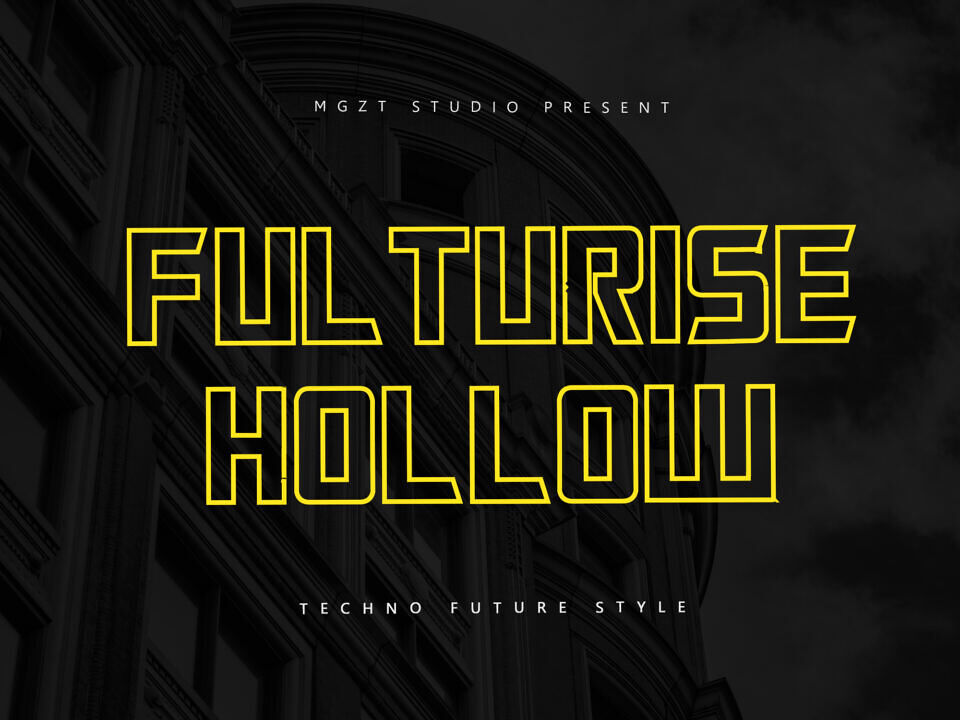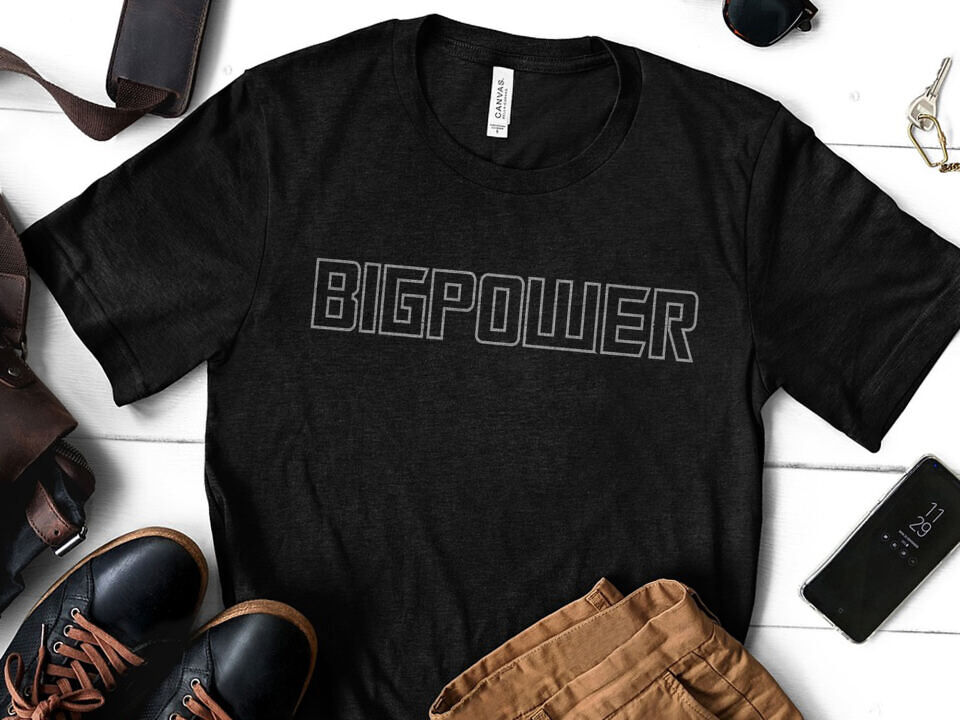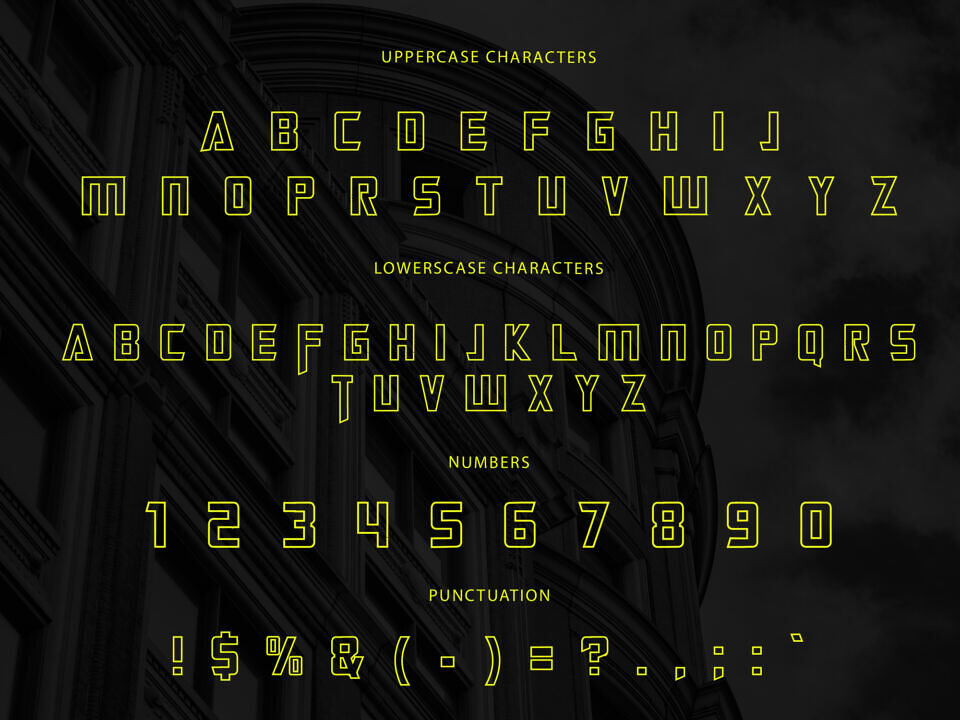
This balance makes Fulturise Hollow ideal for projects that require a blend of Techno and Strong, such as rugged branding, outdoor adventure materials, and strong yet inviting headlines.
The font’s substantial size ensures visibility and impact, while its nuanced design elements provide a welcoming, human touch. Fulturise Hollow is perfect for creating a powerful presence with a touch of gentleness.